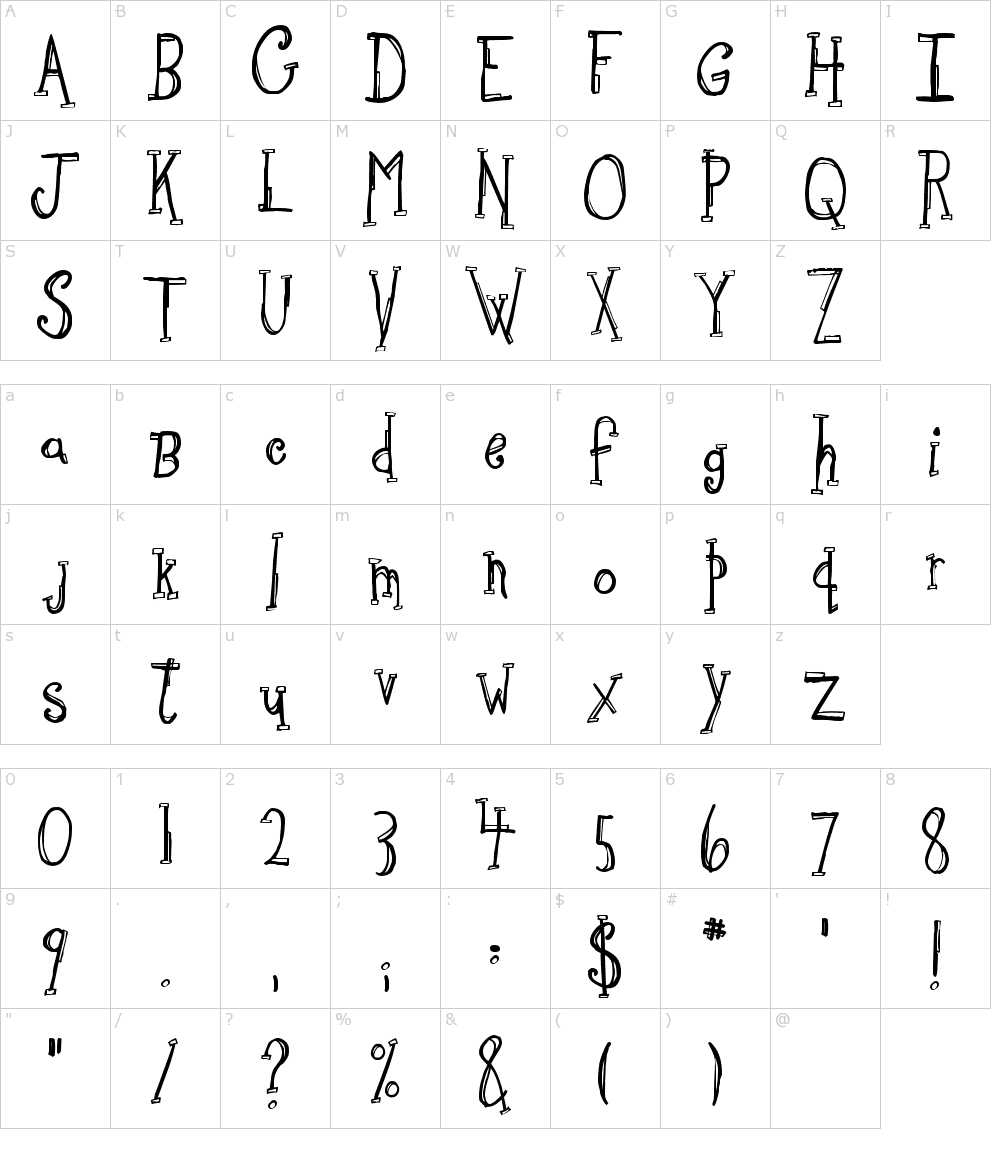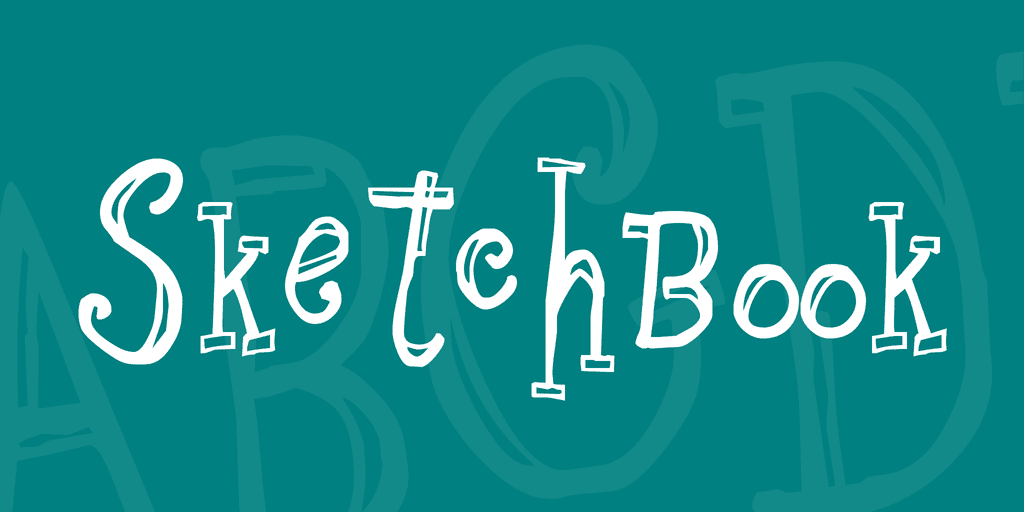
Sketchbook font is a unique and playful font style that mimics the look of hand-drawn lettering. The font style features irregular lines and imperfections, which make it appear as if it was created by hand rather than by a computer program.
This typography was developed by UnAuthorized Type. This font style is particularly popular among artists, designers, and creatives looking to add a fun and whimsical touch to their designs. Jojo font is closest to this family in terms of style and appearance.
One of the key features of the Sketchbook typeface is its versatility. Additionally, the font style is available in a range of weights, making it easy to create a variety of design styles and effects. This typography is a part of google fonts but is attainable on our website.
Using Sketchbook texture can also add a personal touch to your designs. Since the font style mimics hand-drawn lettering, it can help convey a sense of personality and authenticity that may be lacking in more traditional font styles. For more classic designs, you will check its online generator tool. For this purpose, you will copy and paste your simple text on this tool.
Uses of Sketchbook Font
Sketchbook font is a popular choice for a variety of design applications due to its unique and playful aesthetic. One common use of this font is in logo design. By incorporating this font style into a logo, designers can convey a sense of creativity, individuality, and approachability. This can be particularly effective for brands targeting younger or more artistic audiences.
Another common use of this texture is in poster and flyer designs. The font style can add a fun and whimsical touch to event promotions, art prints, and other promotional materials. By combining this typeface with bold colors and eye-catching graphics, designers can create visually striking designs that are sure to grab people’s attention.
This typeface can also be used in web design. By using this font style for headlines, designers can add a unique and memorable touch to websites and blogs. This can help attract visitors and keep them engaged with the content. For more advanced results, you combined or paired Distro font with this typeface.
| Designer | UnAuthorized Type |
| Type | Fancy |
What type of font is Sketchbook?
This texture lies in the category of fancy fonts. The font style features irregular lines and imperfections.
Is Sketchbook a good font?
Yes, sure it is a great font that is well-suitable for various designs and plans.